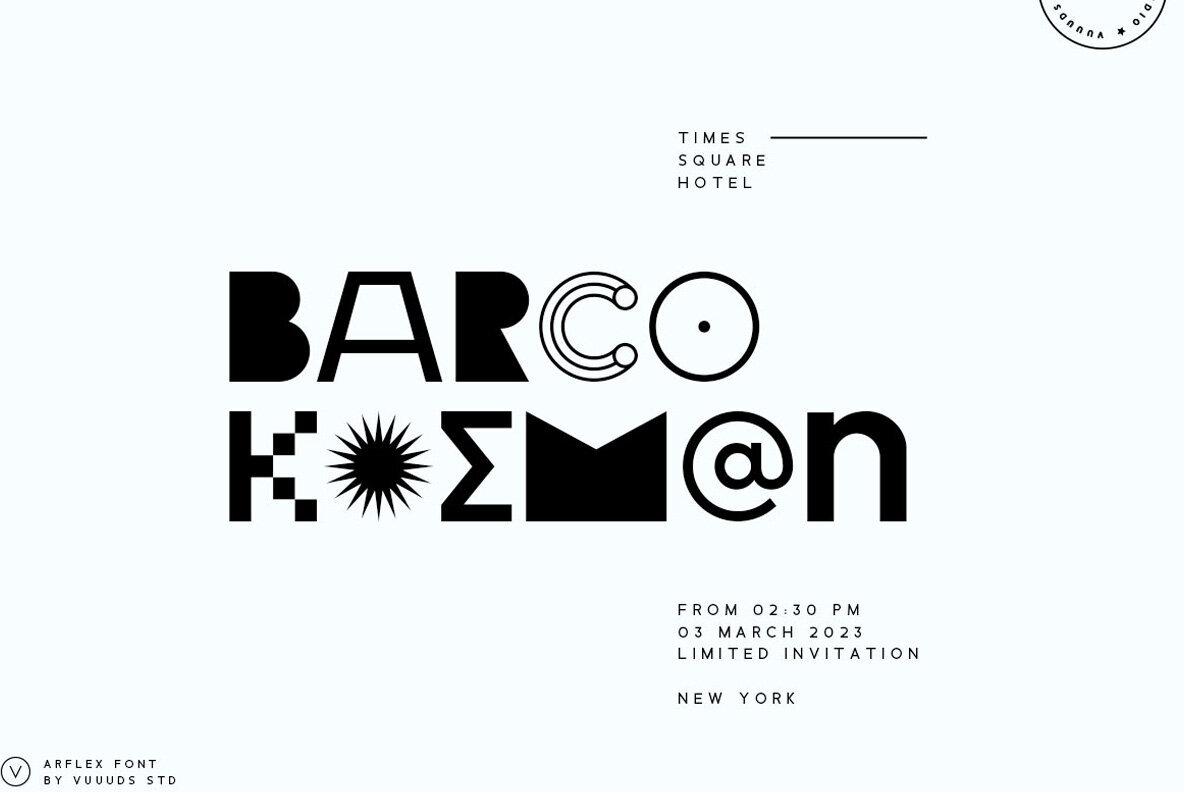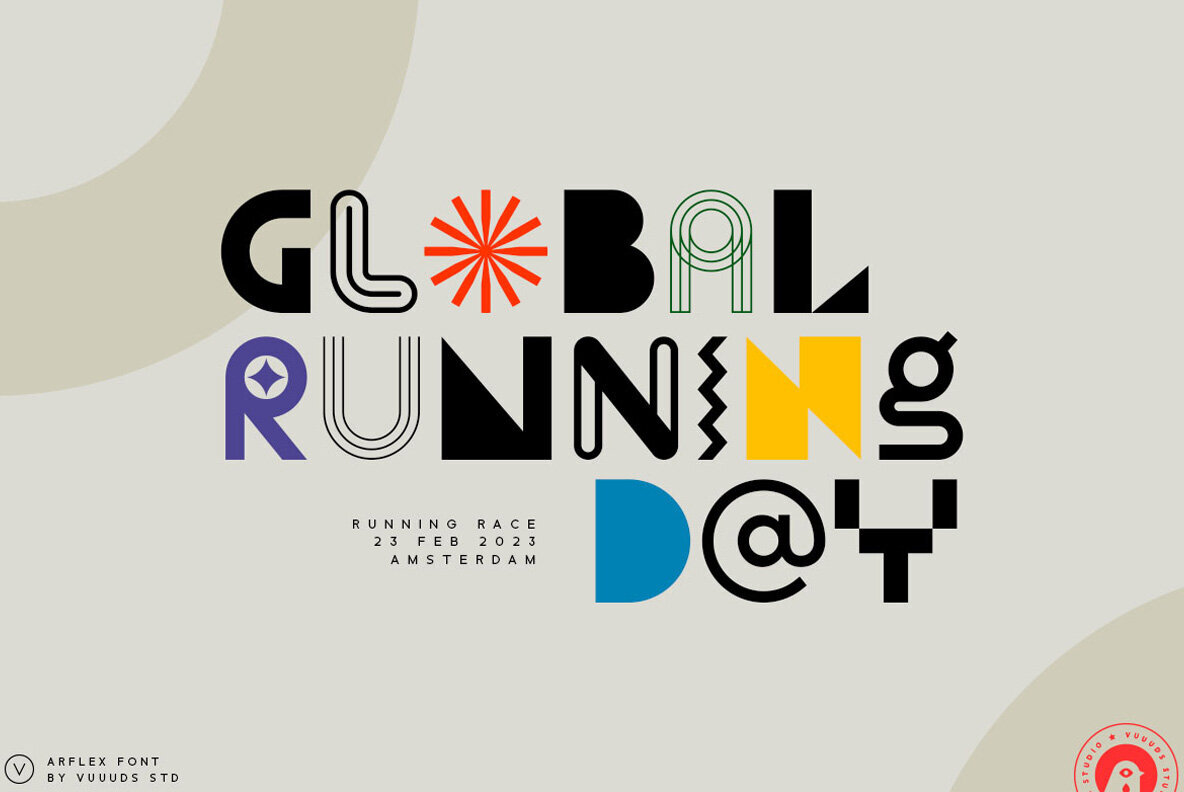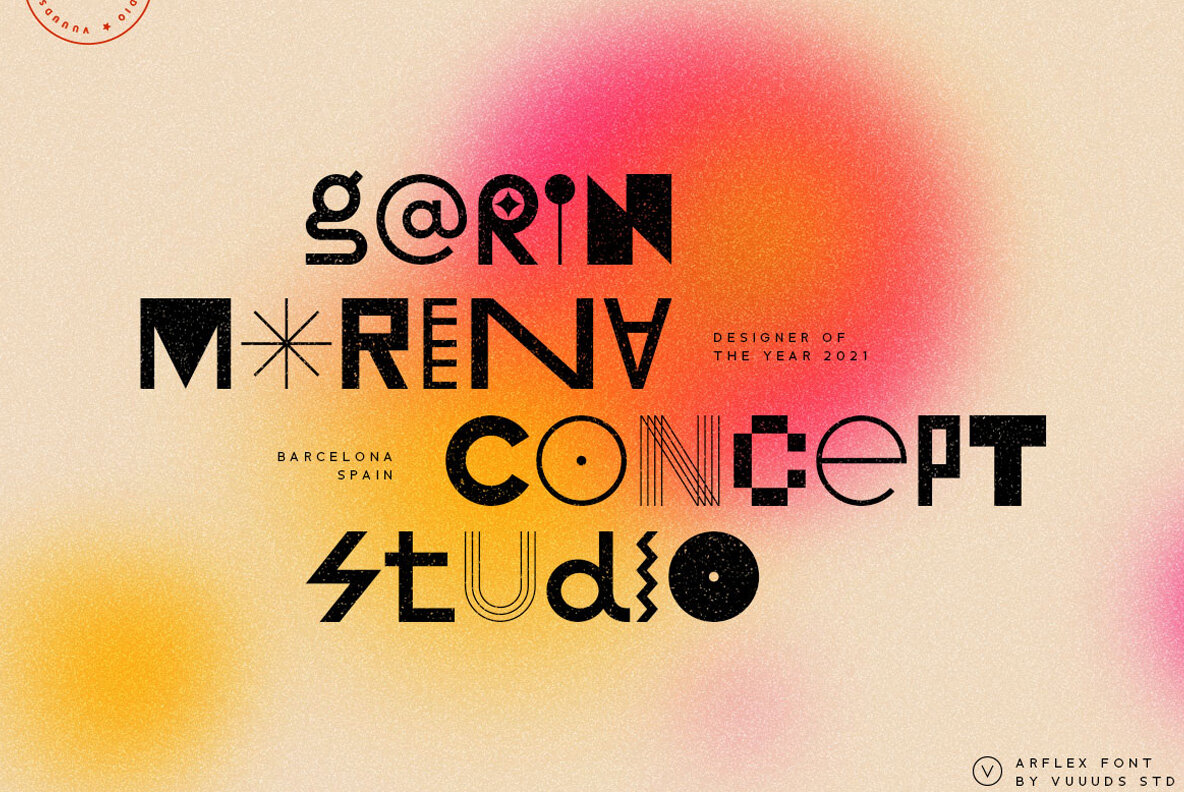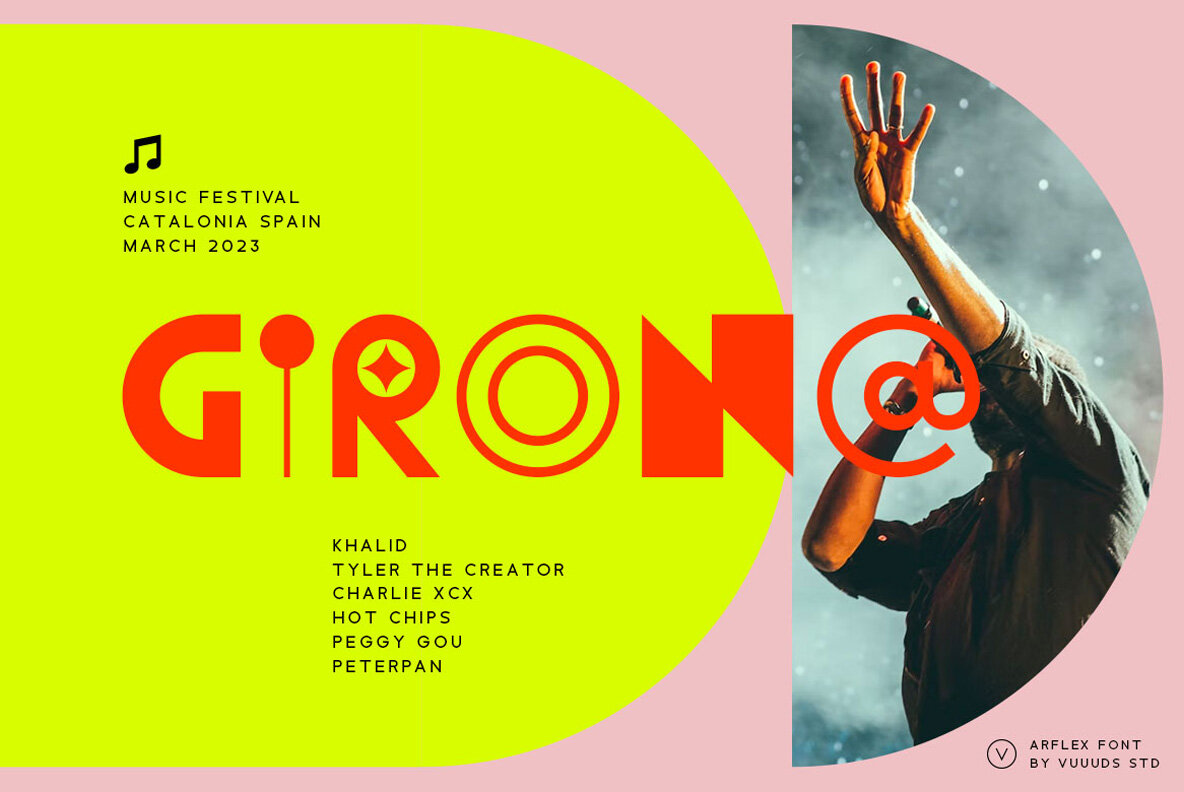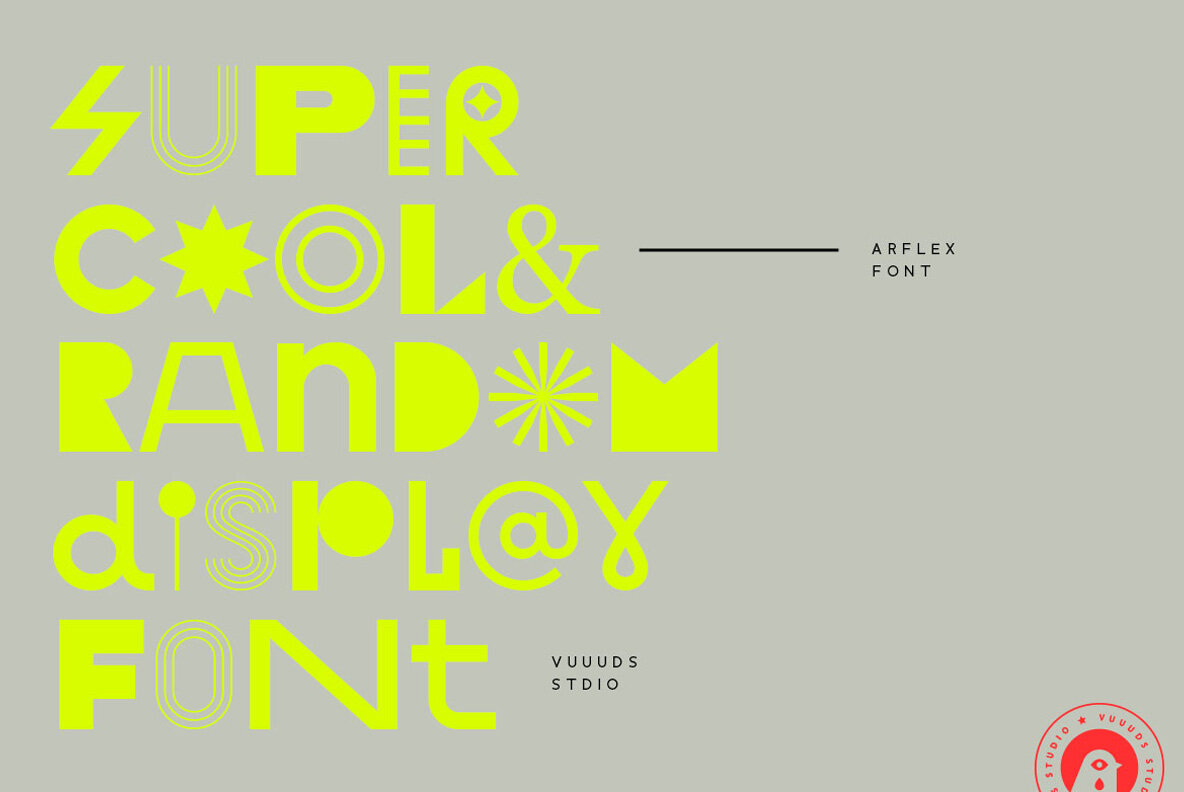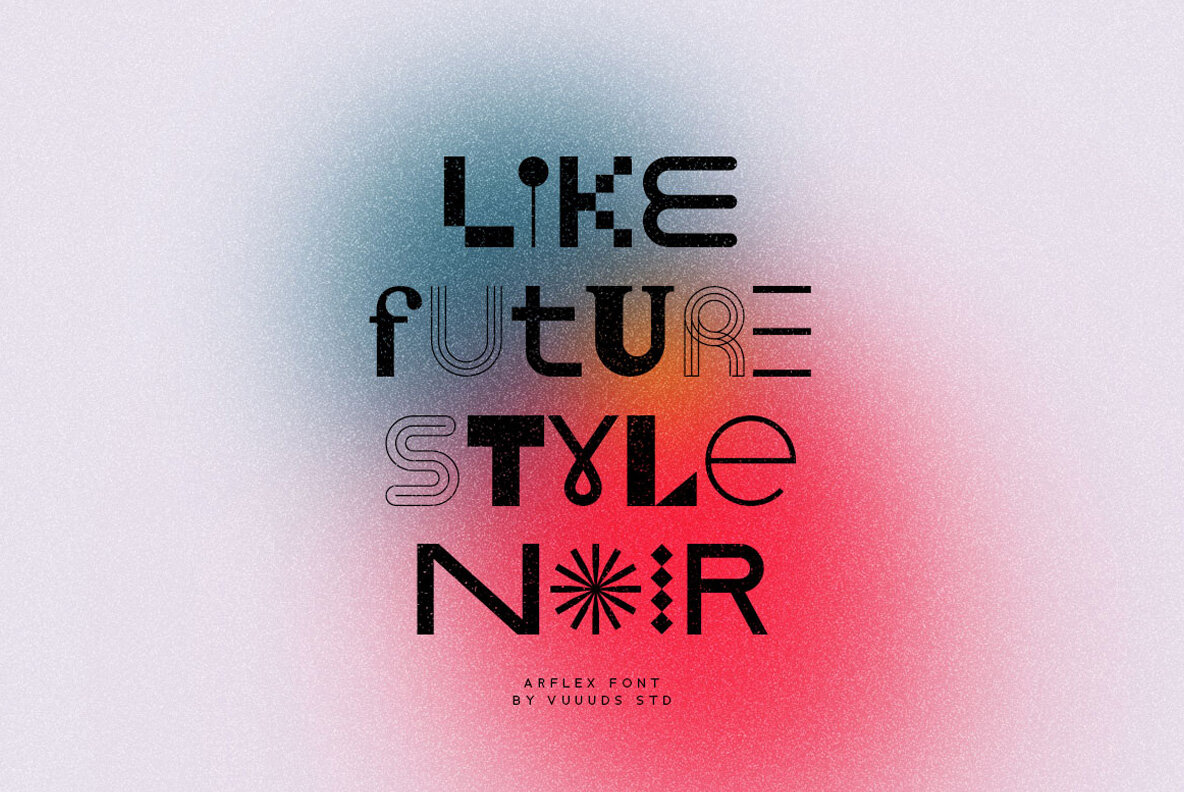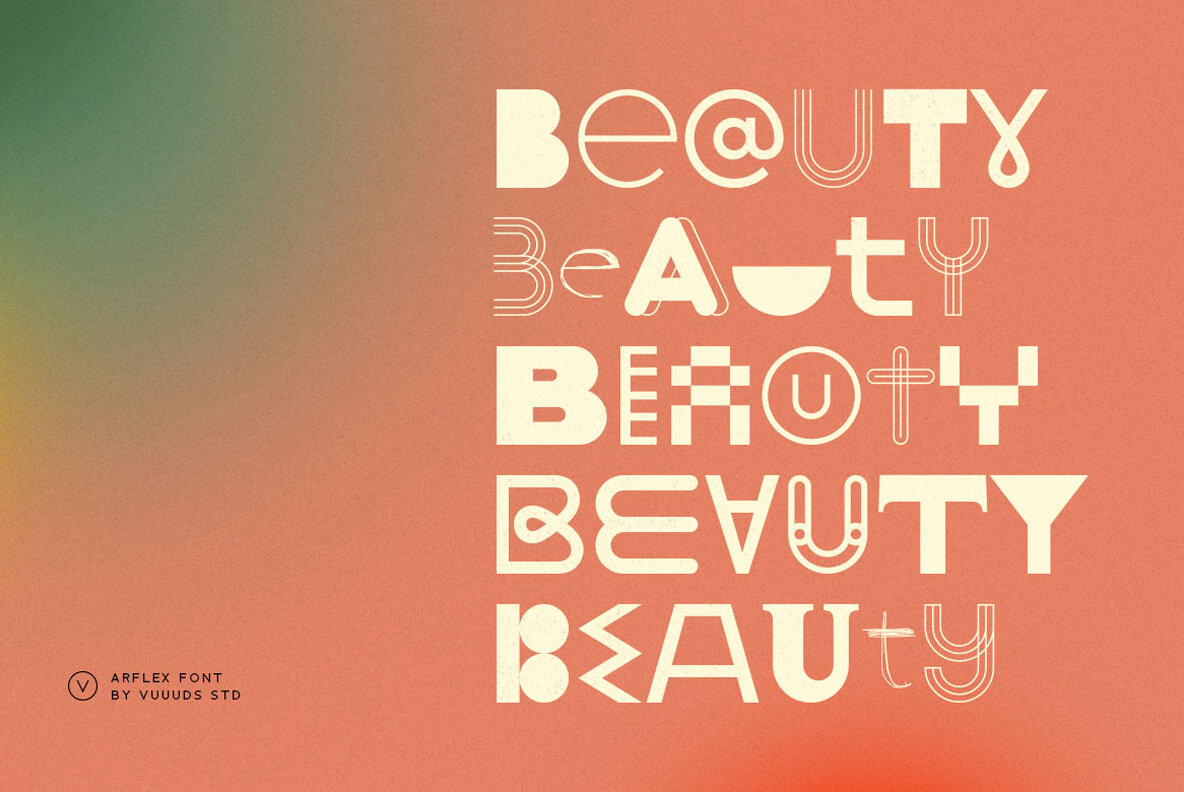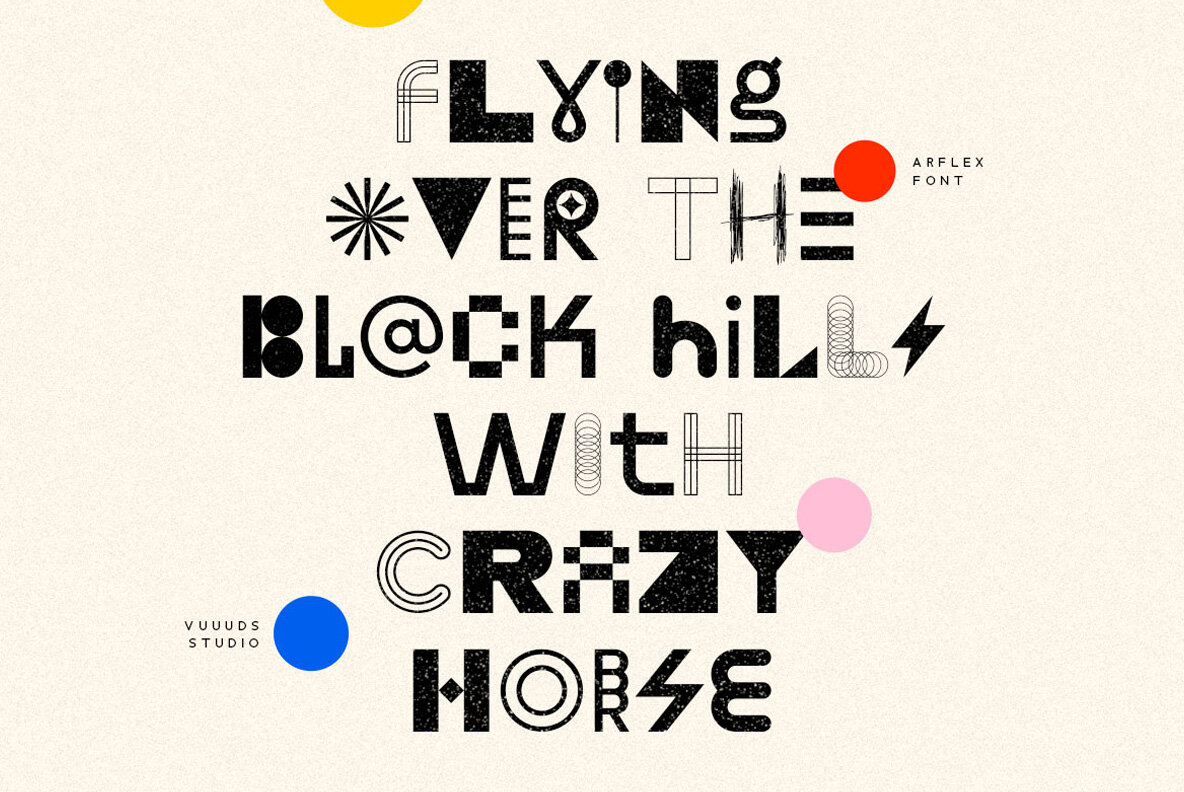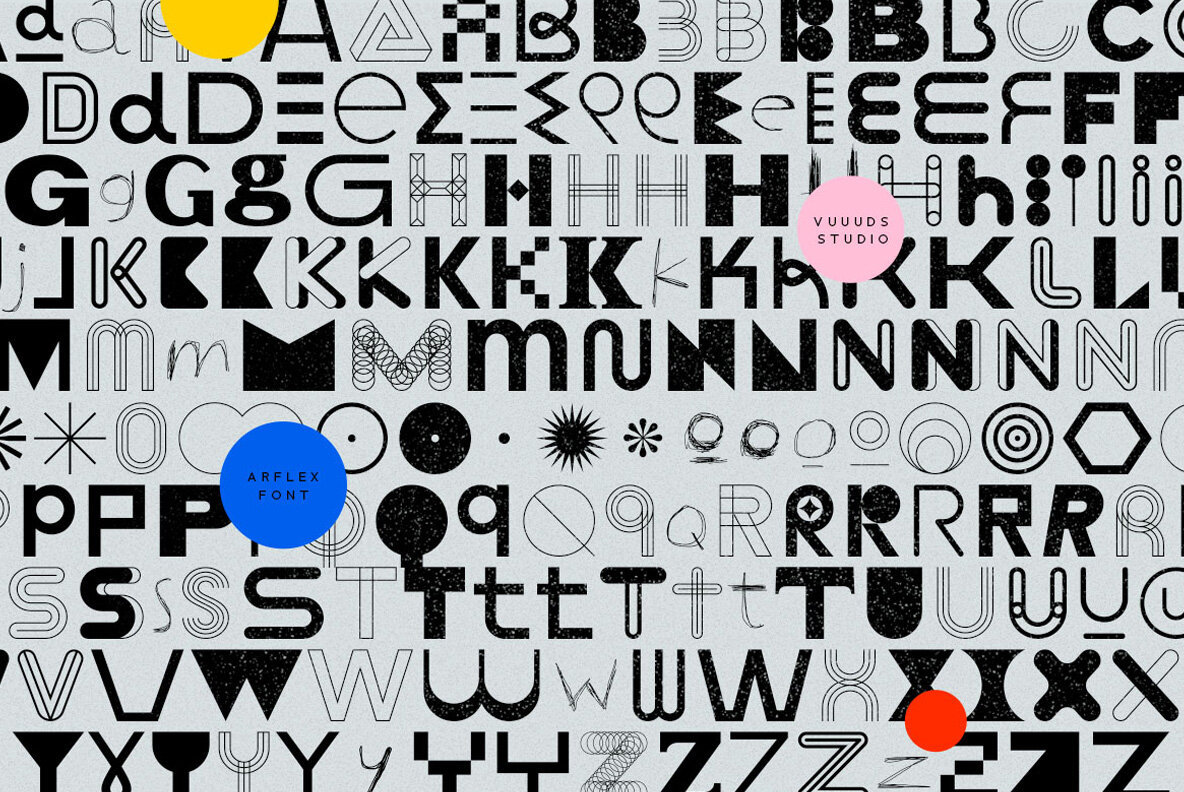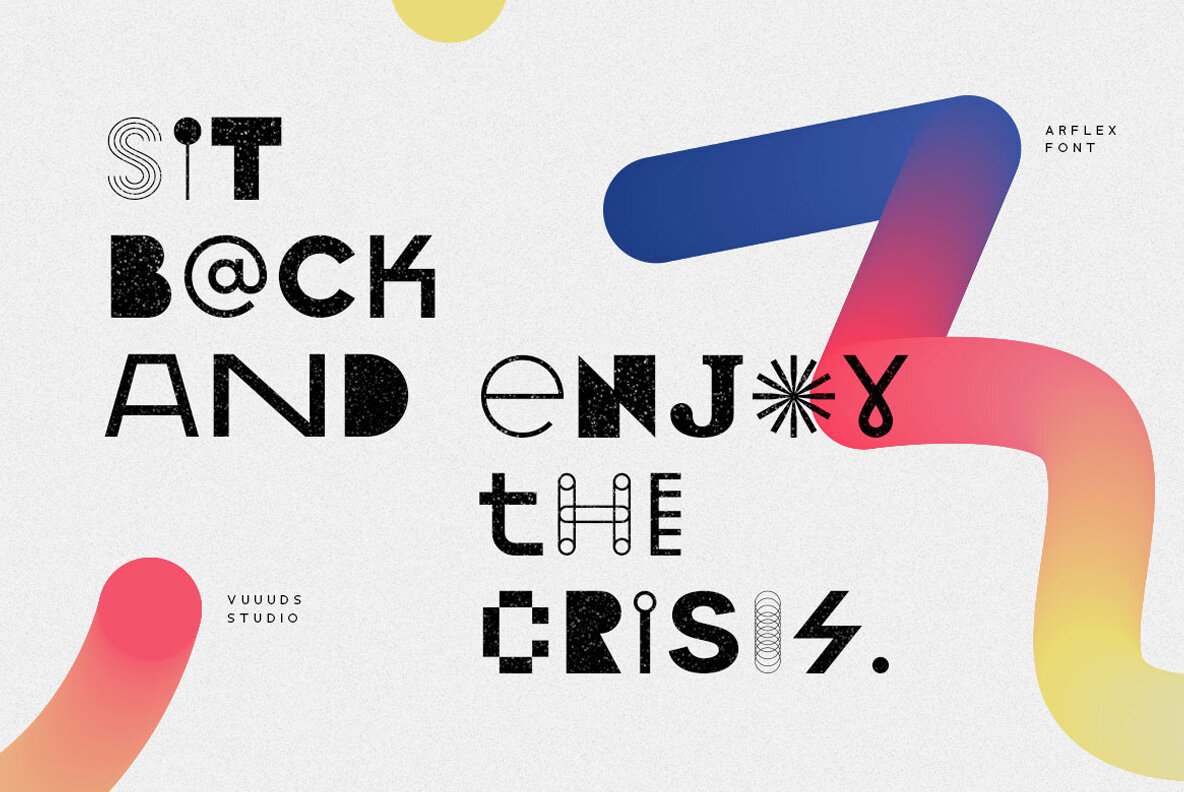
Arflex Font
Arflex
Arflux stands out with its modern, experimental design, where each letter has been meticulously crafted to offer a unique visual experience. This font adds a distinctive flair to any project, making it perfect for designers seeking something different yet compelling.Arflux: A Modern Experimental Display Font